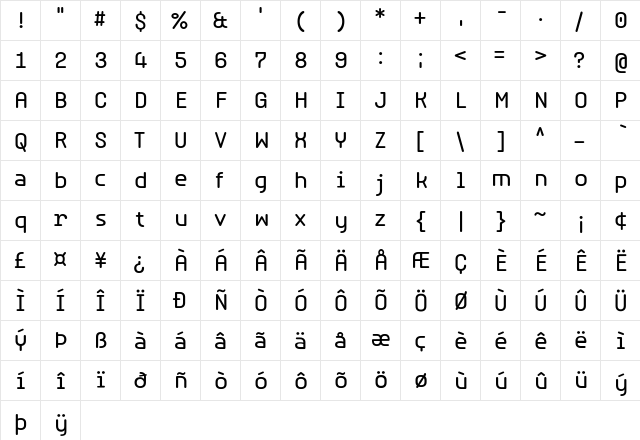
Typori Regular
| Designer | Tzu-yuan Yin |
Design Context for Typori Typeface
Typori is a composed and adaptable typeface that performs quietly and consistently across a wide range of design contexts.